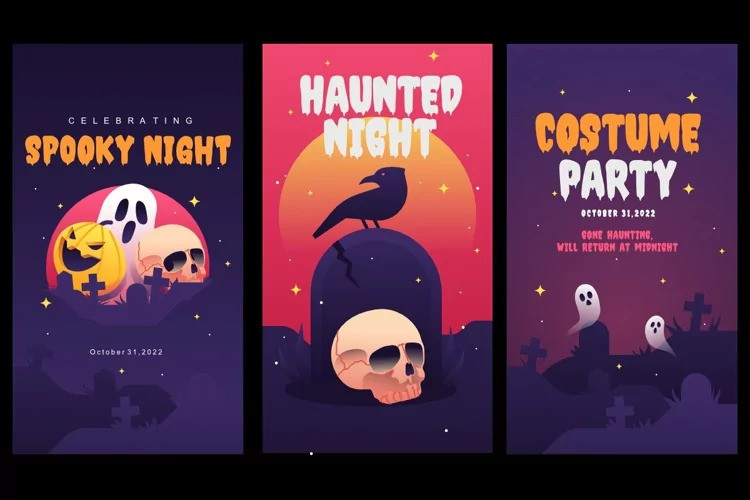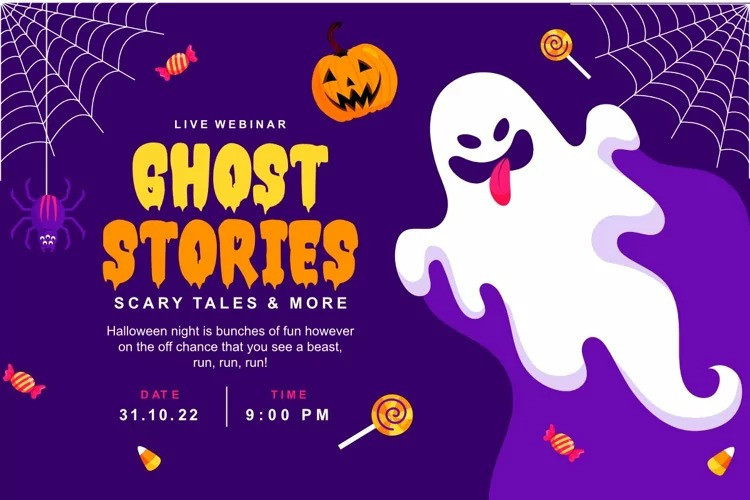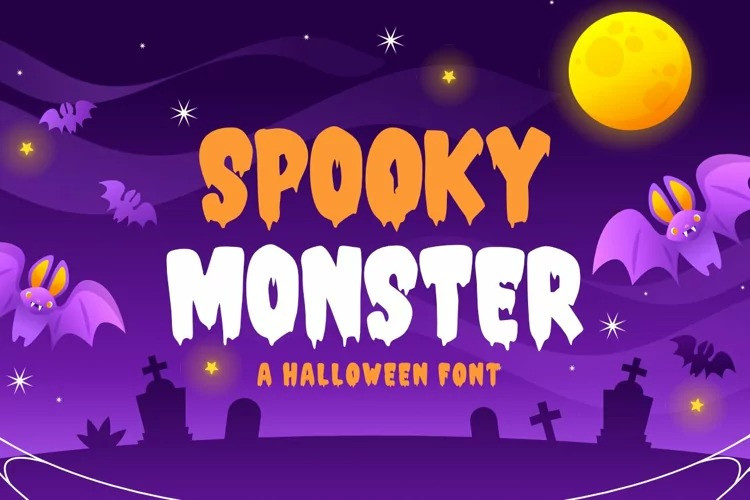
Spooky Monster Font
Spooky Monster Display Font – A Halloween Font. You Can Mix And Match for Your Awesome Project. This fonts is ideal for crafting, branding and decorate your any project. This fonts are perfect for wedding invitation or your blog. Also with their help, you can create a logo or beautiful frame for your home. Or just use for your business, book covers, stationery, marketing, magazines and more.